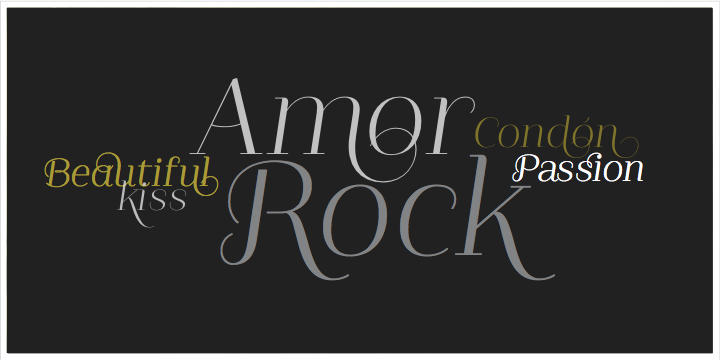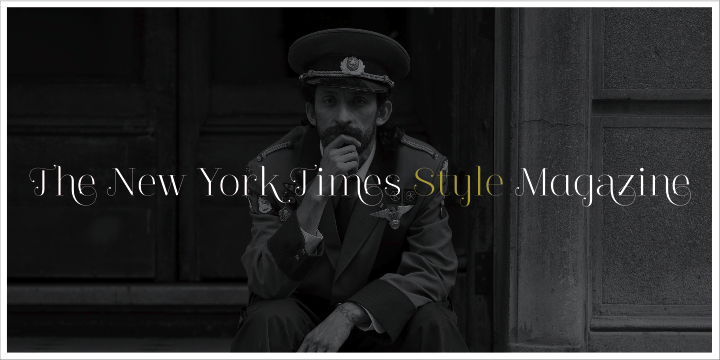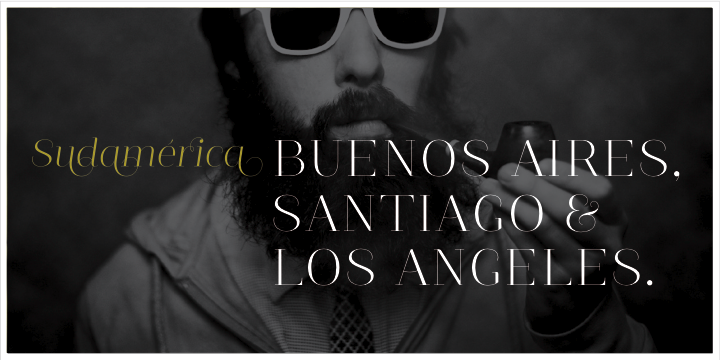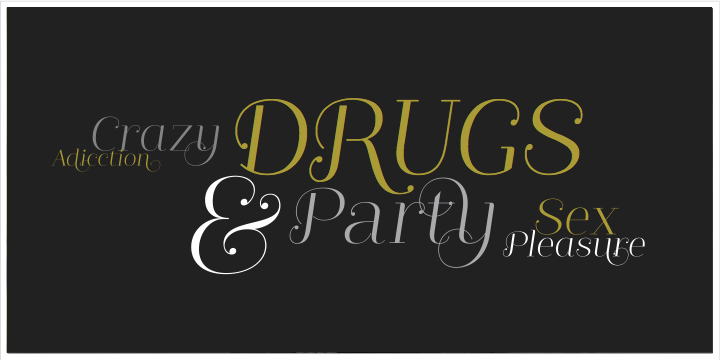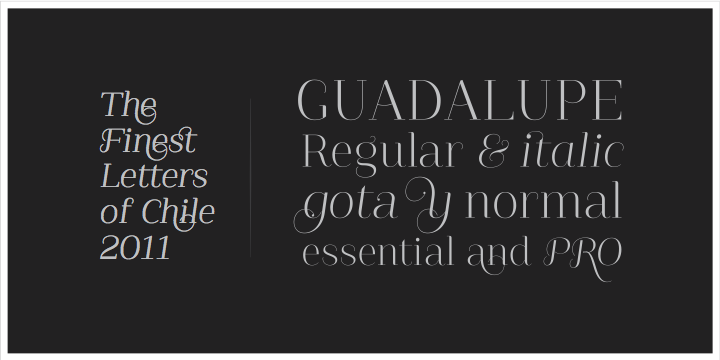
Guadalupe Essential is a display serif font family. This typeface has four styles and was published by Latinotype.
Guadalupe –from the family of classic Didots– is a high performance font with a great set of alternates & swashes and carefully refined details. Especially suited for fashion magazines, logotypes and luxury contexts with a range of two different terminal versions; “Regular” –a classic roman typeface– and “Gota”, much more expressive for word setting.